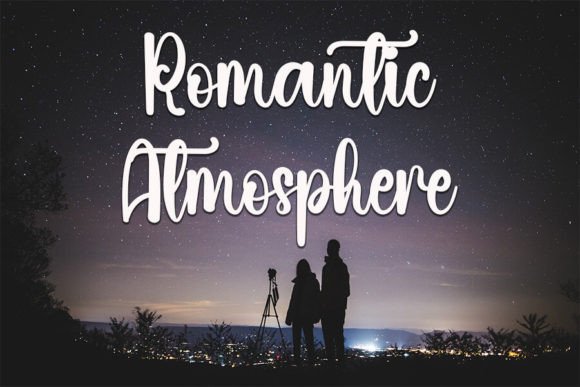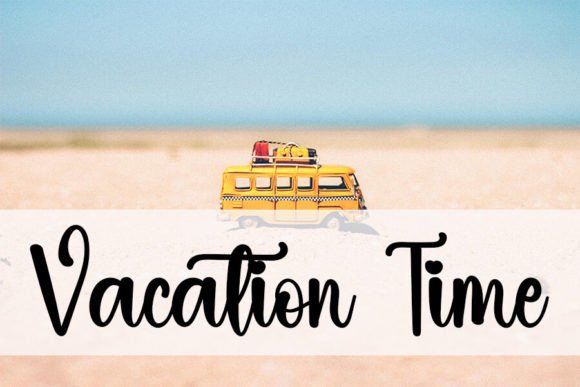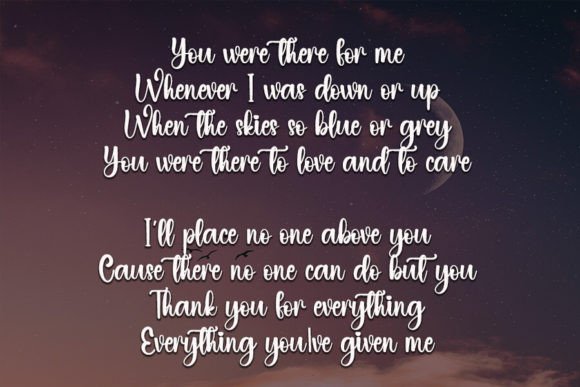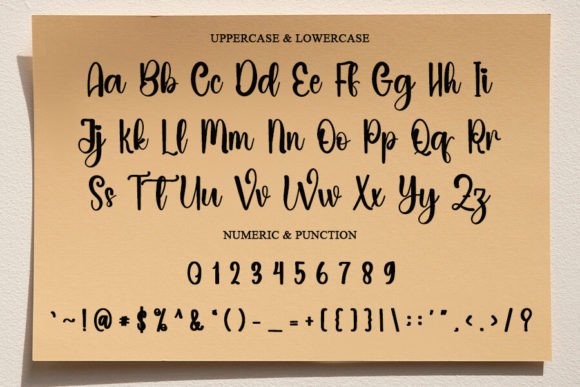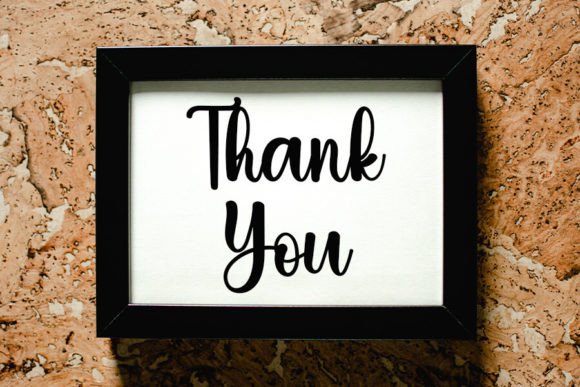
Escape to a Coastal Haven with the Beach Paradise Font
Imagine yourself strolling along a sun-kissed beach, the sound of waves gently crashing against the shore, and the warm breeze carrying the sweet scent of saltwater and coconut. It’s in these serene moments that creativity strikes, and the perfect project begins to take shape. For designers seeking to capture the essence of a tropical paradise, the Beach Paradise Font is the perfect companion.
This beautiful handwritten font boasts an elegant touch, making it perfect for a wide range of projects, from beach-themed invitations to coastal-inspired branding. With its incredibly distinct and timeless style, the Beach Paradise Font is sure to elevate your designs and transport your audience to a state of relaxation and tranquility.
Beach Paradise Font Key Features
- Font Style: A beautiful, elegant, and modern script font with a beach-inspired theme.
- Unique Characteristics: Features a flowing, handwritten feel with subtle beach-inspired elements, such as wave-like strokes and shell-shaped accents.
Designer Review: Beach Paradise Font
Overall, I think the Beach Paradise Font is a nice addition to any font library. It has a certain tropical vibe that’s perfect for summer-themed designs or projects set in coastal areas. ✨ The font’s curved lines and organic feel give it a playful and carefree atmosphere.
Here are some things that work well about the font:
- The font is highly legible, even at smaller sizes, making it suitable for a variety of applications.
- The font’s curves and lines create a visually appealing rhythm that’s engaging to read.
- The font includes a range of weights and styles, making it versatile for different design needs.
- The font may not be as sophisticated or elegant as some other font options, which could be a drawback for more formal or professional designs.
- The font’s tropical feel may not be suitable for projects that require a more neutral or serious tone.
- The font’s lines and curves can sometimes be a bit too playful, which may not be desirable for all design projects.
Overall, I think the Beach Paradise Font is a solid choice for designers looking for a fun and playful font option. It’s perfect for summer-themed designs or projects that require a carefree and laid-back atmosphere. However, it may not be the best fit for more formal or professional designs.
The Beach Paradise font is perfect for creating tropical and beach-themed designs, such as travel brochures, beach wedding invitations, and summer-themed social media posts.
To get the most out of the Beach Paradise font, use it in combination with bright and pastel colors, and add some tropical illustrations or graphics to create a cohesive look.